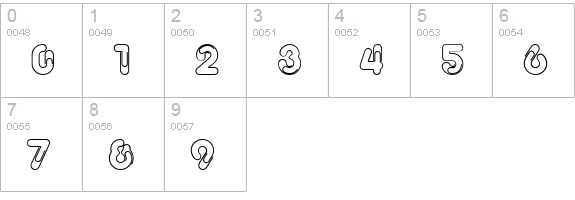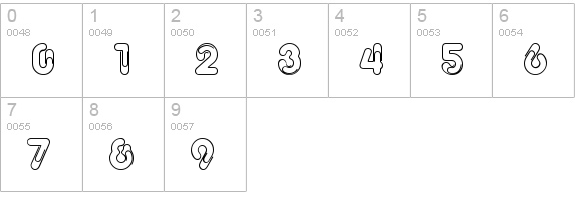
GE Clipz Font Details
Introducing GE Clipz font, a versatile and modern typeface that is perfect for a wide range of design projects. This font features clean lines and a contemporary style that will add a touch of sophistication to any design. With its sleek and elegant appearance, GE Clipz font is ideal for branding, advertising, packaging, and more. One of the best things about GE Clipz font is that it is completely free to use. You can easily download this font from FontsMarket.com and start incorporating it into your projects right away. Whether you are a designer, marketer, or simply someone looking to add a professional touch to your work, GE Clipz font is a great choice. With its wide range of weights and styles, GE Clipz font offers plenty of options to suit your needs. From bold headlines to elegant body text, this font has everything you need to create stunning designs. So why wait? Download GE Clipz font today and elevate your designs to the next level.